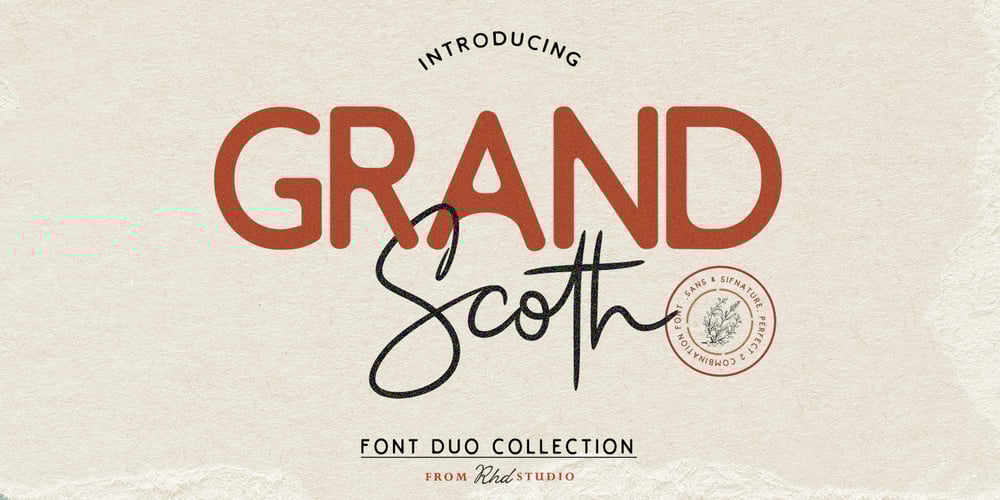
Grand Scoth Font Family was designed by Rahmad Rizky and published by Rhd Studio. Grand Scoth contains 2 styles and family package options. Introducing, Grand Scoth – The Essential Duo Font CollectionGrand Scoth is the perfect and essential combination of a duo of fonts including , round sans and authentic signature. This font duo also supports multilingual, numeric and symbol. You can use this font for any purpose. The best part is, you don’t have to look for a partnerThank you….